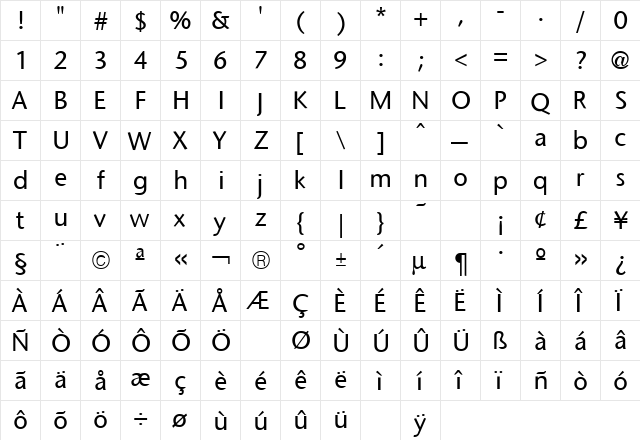
Stone Sans Regular
Design Context for Stone Sans Typeface
Stone Sans is a composed and adaptable typeface that performs quietly and consistently across a wide range of design contexts.
Pro Tip: Pair Stone Sans with a font of contrasting weight or personality to build a more expressive typographic hierarchy.